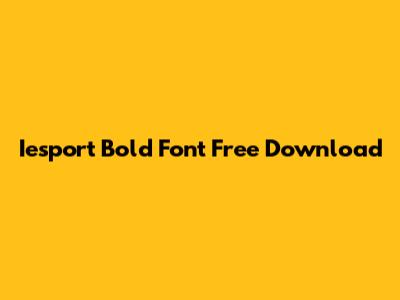
Are you looking to download Iesport Bold font for free? You've come to the right place! In this article, we'll walk you through everything you need to know about this fantastic font, where to find it, and how to use it in your projects. Whether you're a graphic designer, a content creator, or just someone who loves typography, Iesport Bold can add a unique touch to your work. So, let's dive in and get you set up with this awesome font!
What is Iesport Bold Font?
Before we get into the nitty-gritty of downloading, let's talk about what makes Iesport Bold font so special. This font is known for its strong, modern, and eye-catching design. It's perfect for headlines, logos, branding, and any project where you want to make a bold statement. The Iesport Bold font has a unique character that sets it apart from other fonts, making it a favorite among designers who want to add a touch of individuality to their creations. Its clean lines and distinct letterforms ensure readability while maintaining a stylish appearance. This balance of functionality and aesthetics is what makes Iesport Bold such a versatile choice for a wide range of applications. Whether you're designing a website, creating marketing materials, or working on a personal project, Iesport Bold can help you achieve a polished and professional look. Plus, its availability as a free download makes it accessible to everyone, regardless of their budget. The font's impact extends beyond mere visual appeal; it can also influence the overall tone and message of your design. Using Iesport Bold can convey confidence, innovation, and a forward-thinking approach. This makes it particularly suitable for brands and projects that aim to project a strong and contemporary image. Furthermore, the font's distinctiveness helps in creating memorable designs that stand out from the crowd, ensuring that your message is not only seen but also remembered. So, if you're looking to make a lasting impression, Iesport Bold is definitely worth considering. Its unique blend of style and functionality makes it an invaluable asset in any designer's toolkit.
Why Choose Iesport Bold?
So, why should you specifically choose Iesport Bold over the countless other fonts out there? Well, there are several compelling reasons. First off, its bold and strong appearance makes it ideal for grabbing attention. If you need a font that can make a statement, Iesport Bold is your go-to choice. It's perfect for headlines, posters, and any design element that needs to stand out. Secondly, despite its boldness, Iesport Bold maintains excellent readability. This means you don't have to sacrifice clarity for style. Your message will not only be visually appealing but also easy to read and understand. This is crucial for ensuring that your audience can quickly grasp the information you're trying to convey. Thirdly, Iesport Bold is incredibly versatile. It works well in a variety of design contexts, from websites and logos to print materials and social media graphics. Its adaptability makes it a valuable asset in any designer's toolkit. You can use it to create a cohesive and professional look across all your branding and marketing efforts. Fourthly, the availability of Iesport Bold as a free download makes it accessible to everyone. You don't have to break the bank to get your hands on a high-quality font that can elevate your designs. This is particularly beneficial for students, freelancers, and small businesses that are working with limited budgets. Finally, Iesport Bold has a unique and modern aesthetic that can add a touch of sophistication to your projects. Its clean lines and distinctive letterforms give it a contemporary feel that can help your designs stand out from the competition. If you're looking to create a design that is both visually appealing and highly effective, Iesport Bold is an excellent choice. Its combination of boldness, readability, versatility, affordability, and modern aesthetic makes it a standout option in the world of typography.
Using Iesport Bold in Your Projects
Now that you've successfully downloaded and installed Iesport Bold, let's explore how you can use it effectively in your projects. This font is incredibly versatile, making it suitable for a wide range of applications. One of the most common uses for Iesport Bold is in headlines and titles. Its bold and eye-catching appearance makes it perfect for grabbing attention and drawing readers into your content. When using Iesport Bold for headlines, be sure to pair it with a complementary body font that is easy to read. This will help create a balanced and visually appealing design. Another great way to use Iesport Bold is in logos and branding materials. Its unique and modern aesthetic can help your brand stand out from the competition. Consider using Iesport Bold in your logo, website, and marketing materials to create a cohesive and professional brand identity. In addition to headlines and logos, Iesport Bold can also be used in posters, flyers, and social media graphics. Its boldness makes it ideal for conveying important information quickly and effectively. When designing posters and flyers, be sure to use Iesport Bold sparingly to avoid overwhelming the viewer. Use it to highlight key information and create a visual hierarchy that guides the eye. For social media graphics, Iesport Bold can be used to create eye-catching visuals that grab attention in a crowded feed. Experiment with different colors and backgrounds to create graphics that are both visually appealing and on-brand. Overall, Iesport Bold is a versatile and powerful font that can be used in a variety of design projects. By understanding its strengths and limitations, you can use it effectively to create designs that are both visually appealing and highly effective. Remember to always experiment with different font pairings and design elements to find the perfect combination for your needs. Happy designing!
Tips for Working with Bold Fonts
Working with bold fonts like Iesport Bold can be a game-changer for your designs, but it's essential to know how to use them effectively. Overusing bold fonts can lead to visual clutter and make your design look overwhelming. The key is to use them strategically to highlight important information and create a visual hierarchy. Start by identifying the key elements in your design that you want to stand out, such as headlines, subheadings, or calls to action. Use bold fonts sparingly to draw attention to these elements and create a clear focal point. When pairing bold fonts with other fonts, be sure to choose fonts that complement each other. A good rule of thumb is to pair a bold font with a simpler, more legible font for body text. This will help create a balanced and visually appealing design. Another important tip is to consider the context in which your design will be used. Bold fonts can be particularly effective in print materials, where they can help to grab attention on a crowded shelf or in a magazine. However, they may not be as effective on screen, where they can sometimes appear too harsh or overwhelming. Experiment with different font sizes and weights to find the perfect balance for your design. Don't be afraid to try different combinations and see what works best. Additionally, pay attention to the spacing and kerning of your bold fonts. Adjusting the spacing between letters can help improve readability and create a more polished look. Finally, always get feedback from others before finalizing your design. A fresh pair of eyes can often spot potential issues that you may have missed. By following these tips, you can use bold fonts effectively to create designs that are both visually appealing and highly effective. Remember to use them strategically, pair them with complementary fonts, and consider the context in which your design will be used.